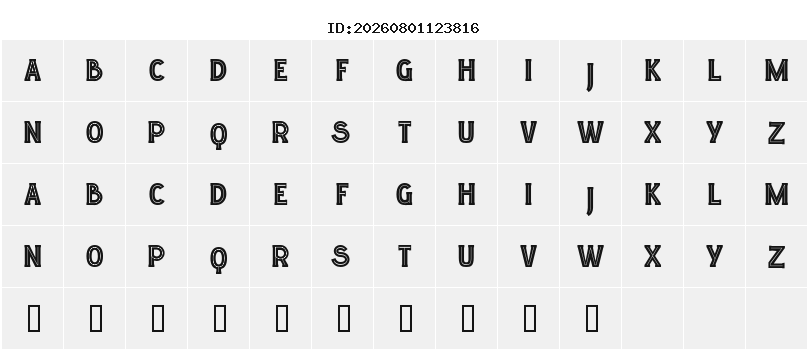
• Font Name: LGF ELUCIDAR TITULARES
• Designer: Manuel Lage
• Description: LGF ELUCIDAR Regular is a font by MANUEL LAGE, designed by Manuel Lage in 2013. [vers.1.0] free font to personal uses - Commercial use is allowed if a donation is made to the account paypal [dvddws@yahoo.es] 1 euro, for version 1.0 vers LGF ELUCIDAR TITULARES El uso comercial está permitido si se hace una donación a la cuenta de paypal [dvddws@yahoo.es] de 1 euro, para la versión LGF ELUCIDAR TITULARES vers 1.0 - Esta versión sólo dispone de caja alta.
About LGF ELUCIDAR TITULARES.otf
LGF ELUCIDAR TITULARES.otf is a modern, elegant sans-serif font designed for ultimate readability and visual harmony. Perfect for branding, headlines, web design, and print materials.